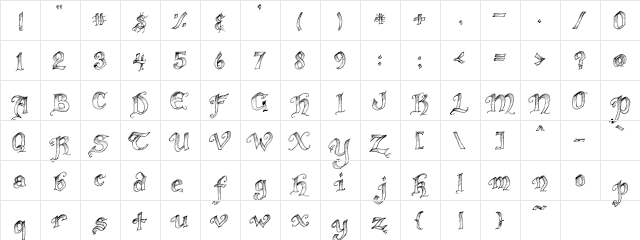
LOT Quest Regular Font Preview
LOT Quest Regular
Design Context for LOT Quest Typeface
LOT Quest is a composed and adaptable typeface that performs quietly and consistently across a wide range of design contexts.